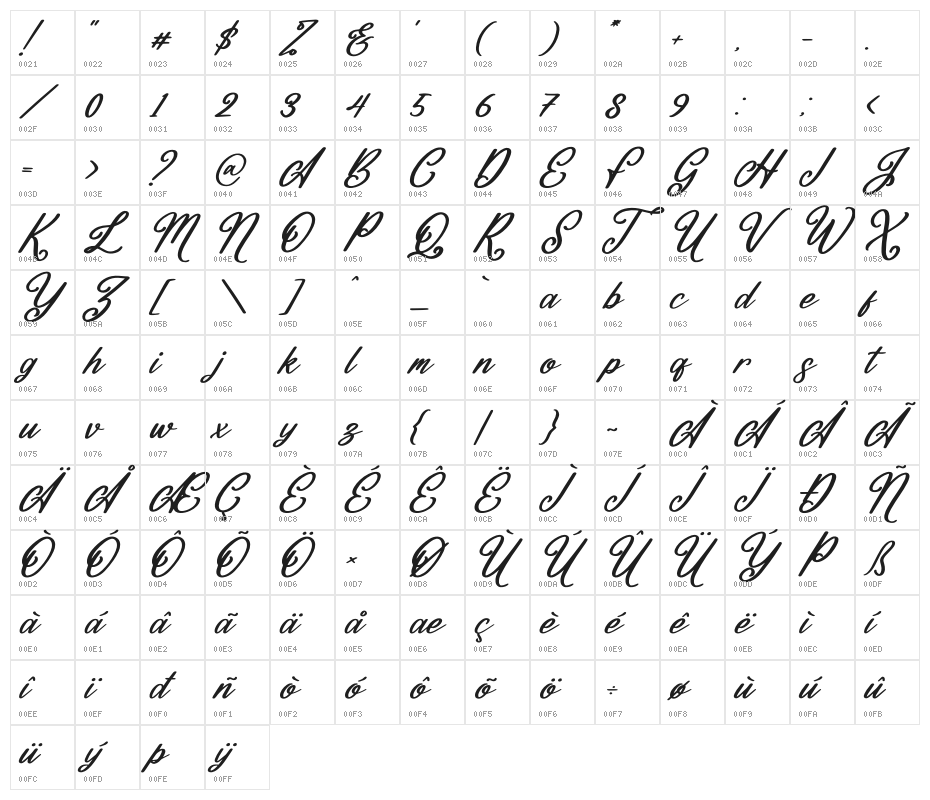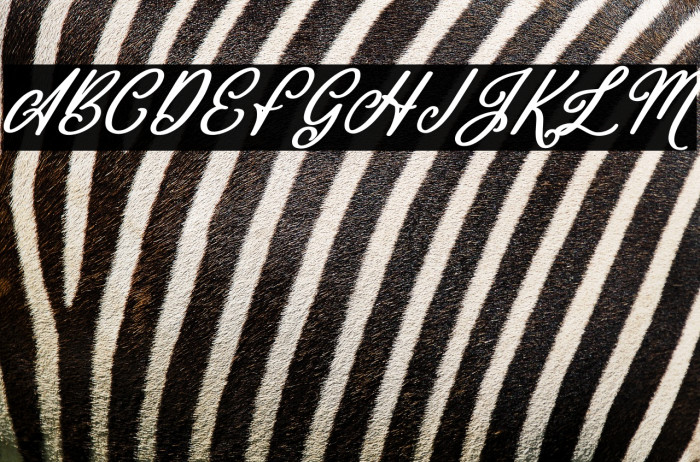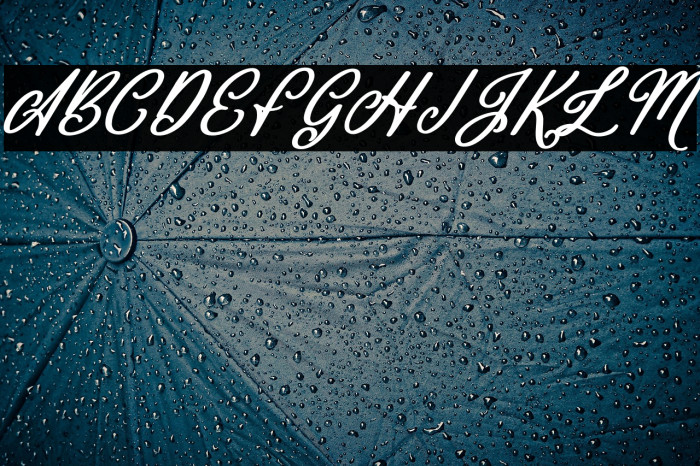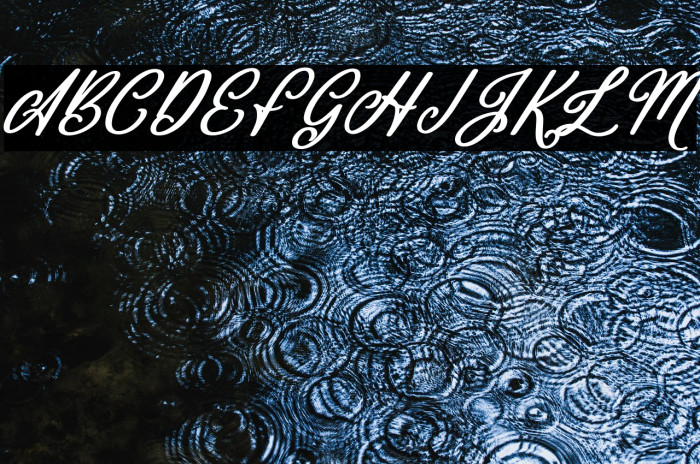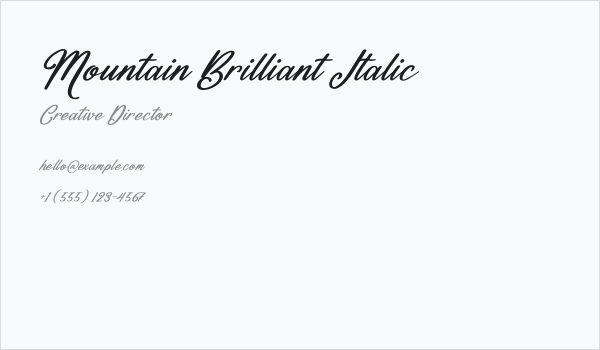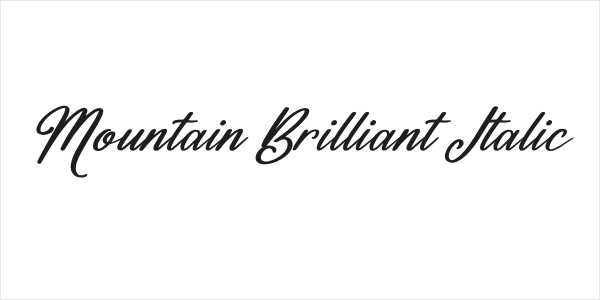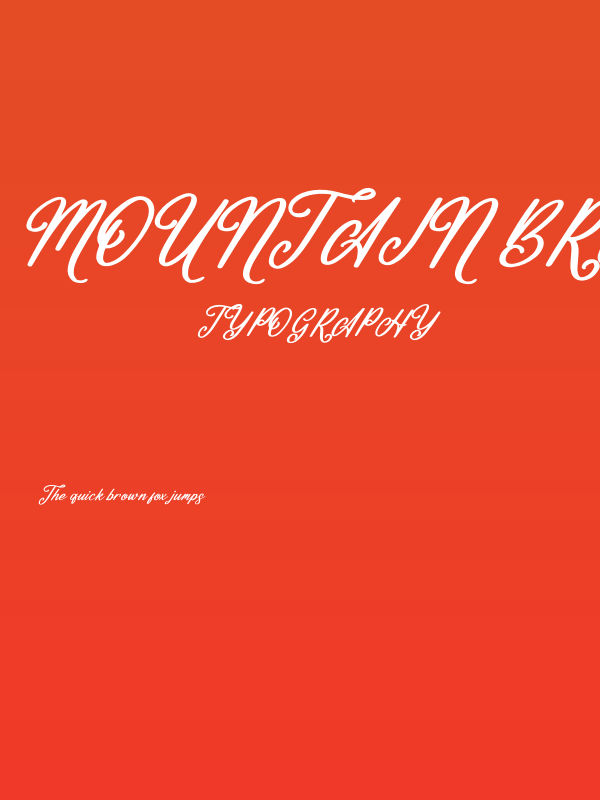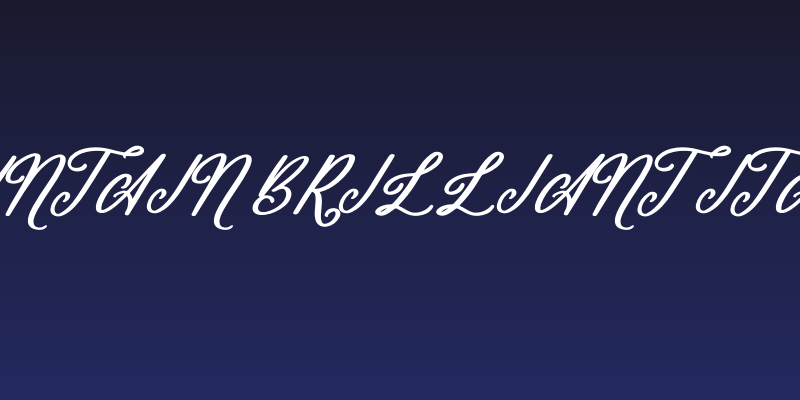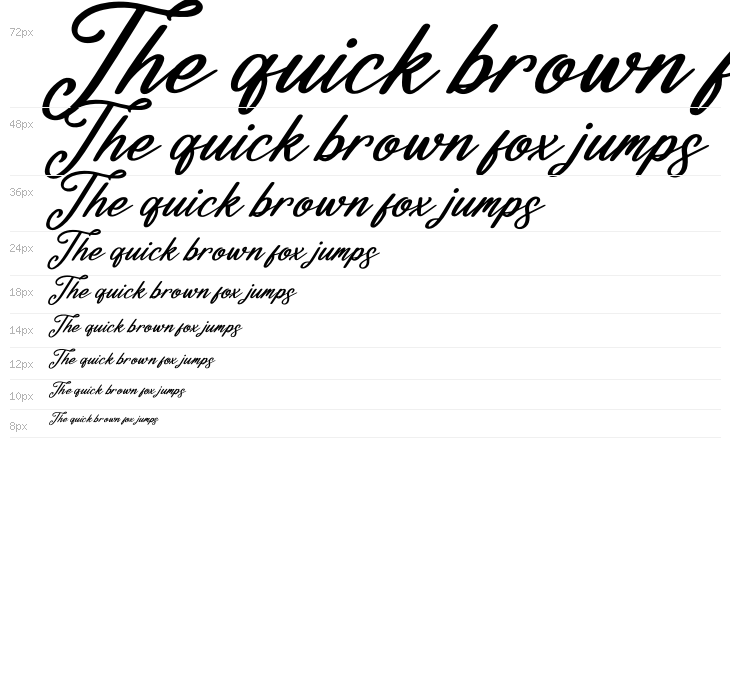
Mountain Brilliant Italic Font
Mountain Brilliant Italic Description
This font features an elegant and flowing script style, characterized by its italicized and cursive letterforms. The uppercase letters are ornate with flourishes, while the lowercase letters maintain a smooth and connected appearance, enhancing readability. The numerals are consistent with the script style, offering a cohesive look across all characters. Special characters are designed to complement the overall aesthetic, making this font suitable for decorative purposes. The font exudes a sense of sophistication and charm, ideal for projects that require a personal and artistic touch.